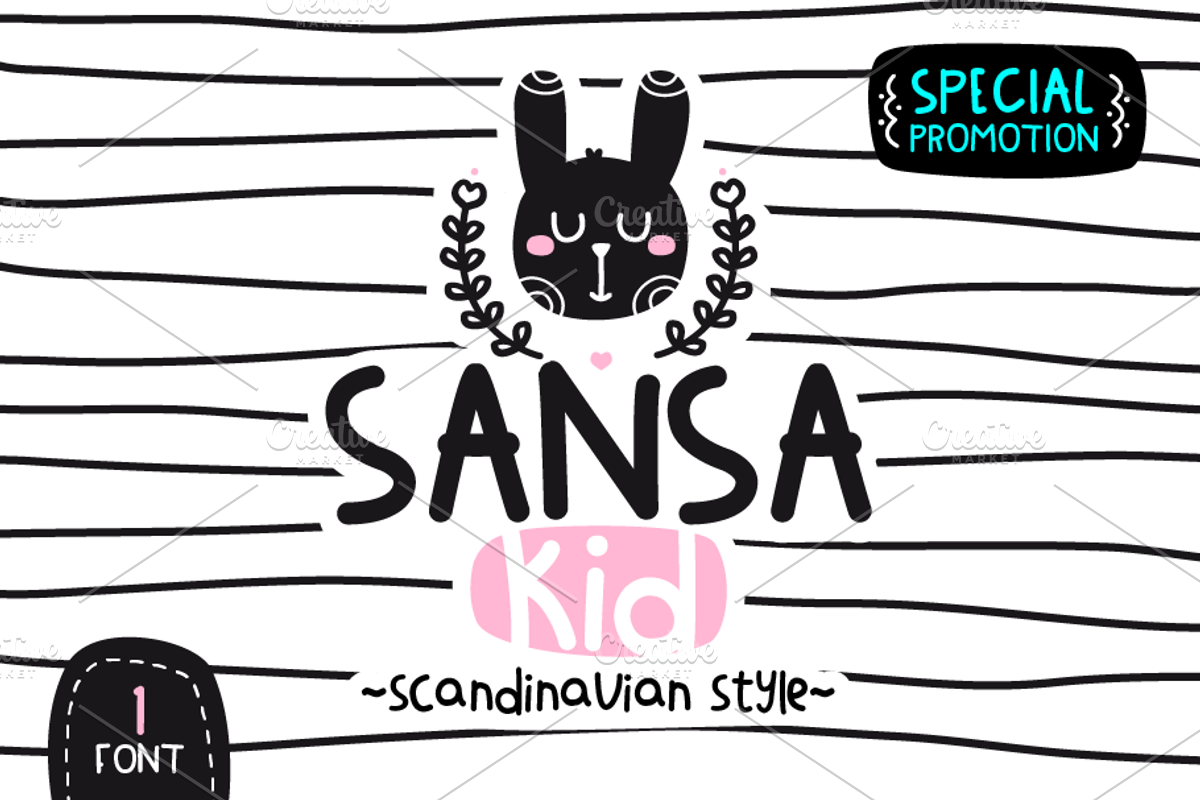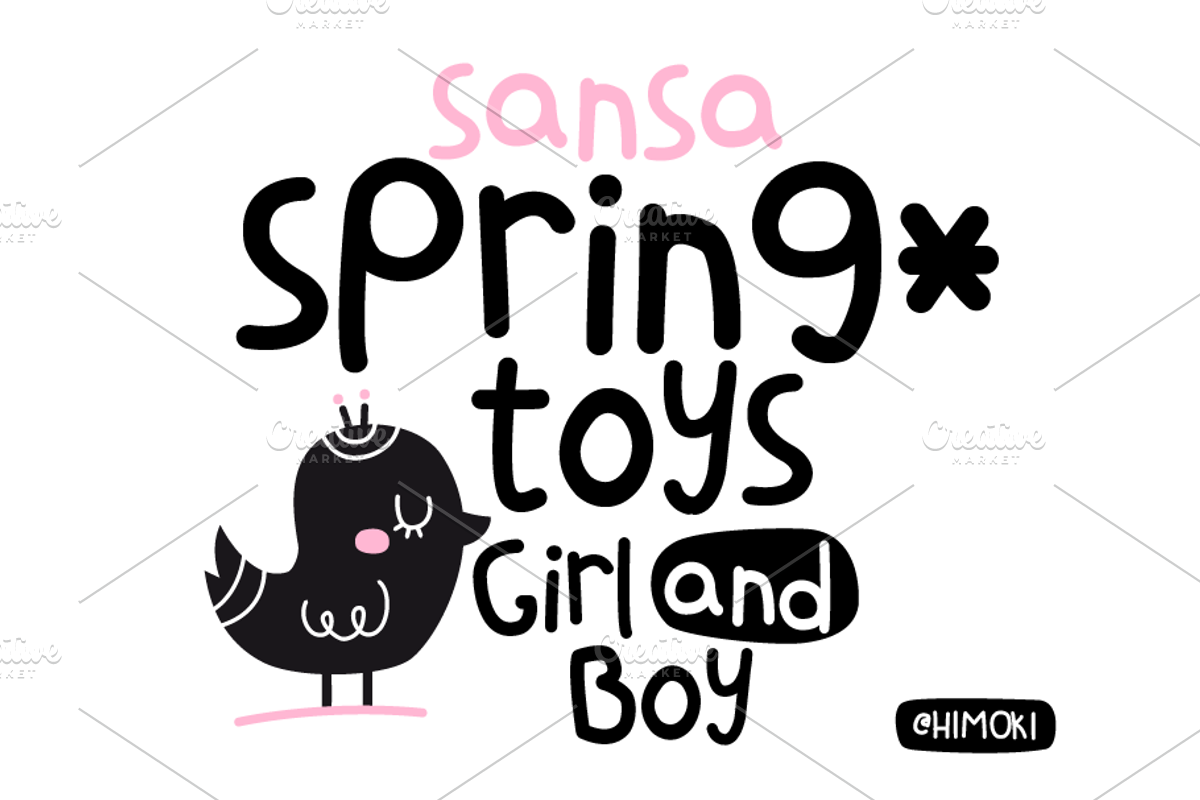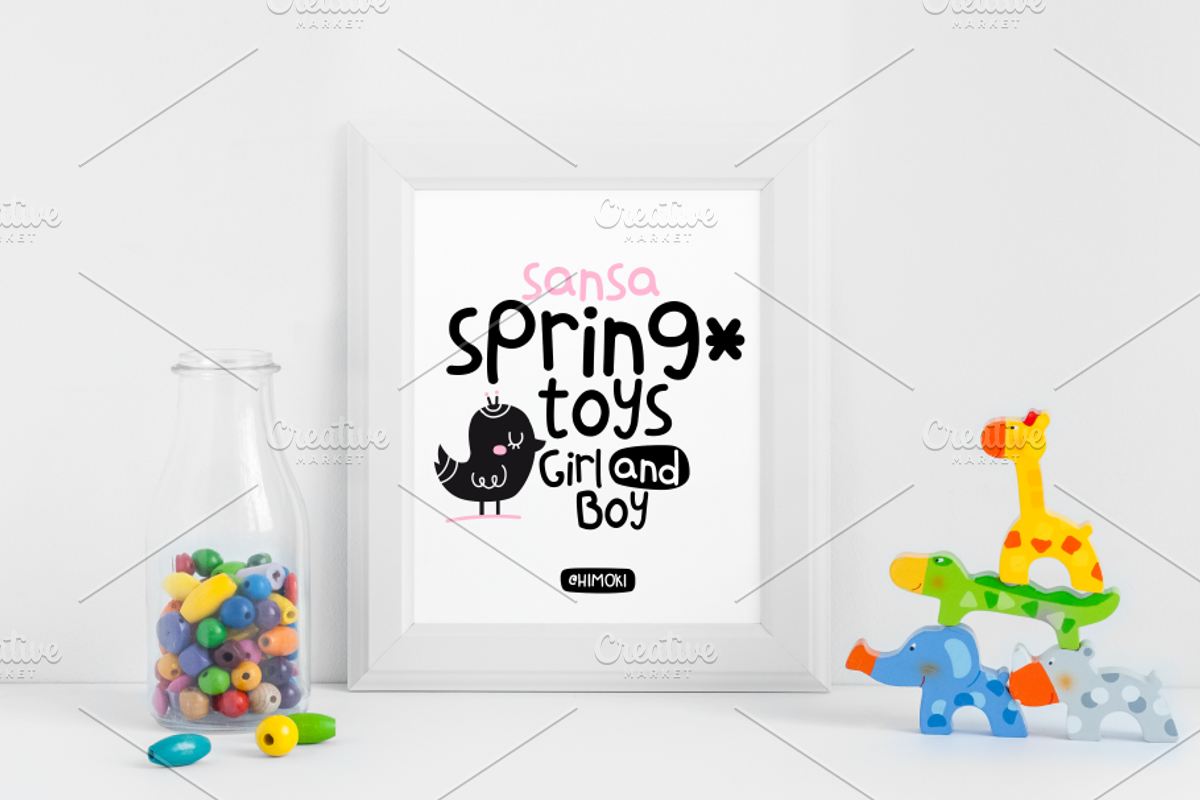
SansaKid.Baby.Kids.Childrens.font
SansaKid font by Himoki
Scandinavian style, great for design and compositions. //otf //1 fonts
SansaKid.Baby.Kids.Childrens.font by himoki fits naturally into Branding, posters, packaging, typography.